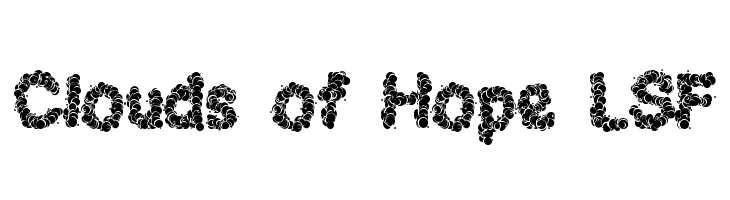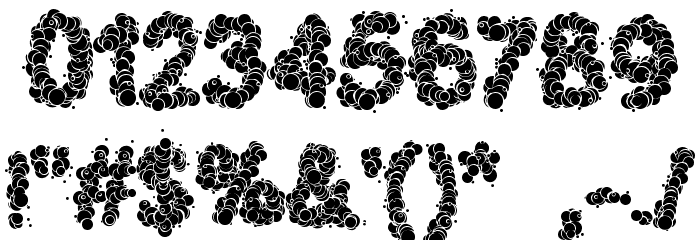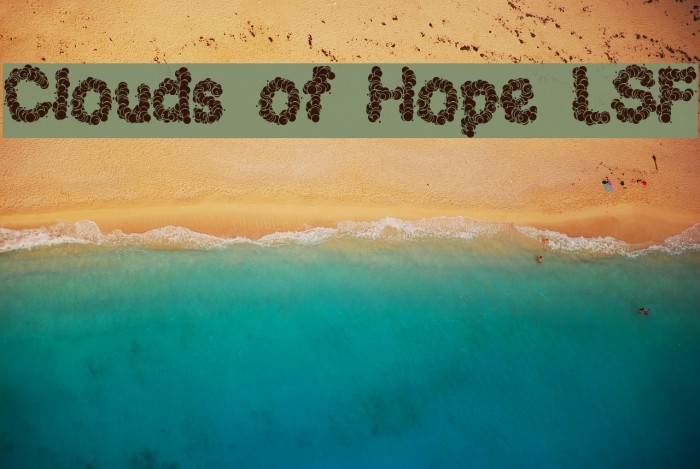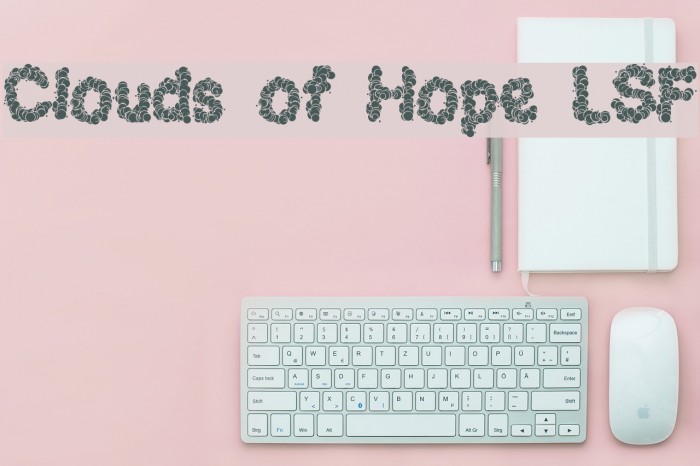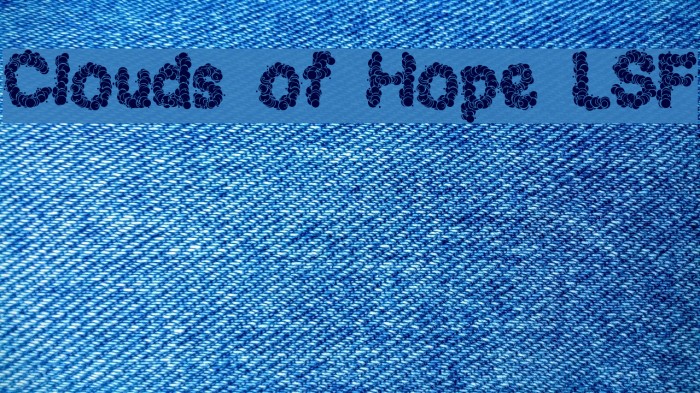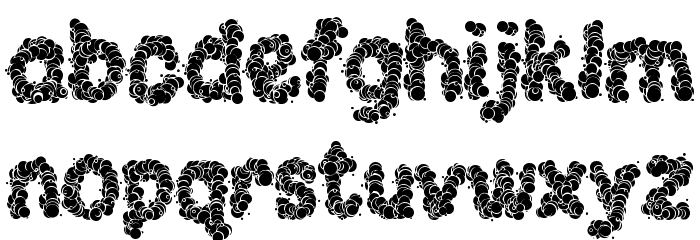
Clouds of Hope LSF Font
Clouds of Hope LSF Description
This font features a unique and playful design, characterized by its bubbly and cloud-like appearance. Each character is composed of overlapping circular shapes, creating a whimsical and textured effect. The font maintains a consistent thickness throughout, giving it a bold and impactful presence. Its decorative style is eye-catching and suitable for creative projects that require a fun and lively aesthetic. The characters are well-defined, ensuring readability despite the intricate design. This font is perfect for projects that aim to convey a sense of joy and creativity.
A playful, cloud-like font with a bubbly, decorative style from bubble letter fonts.
- Proposed Projects: Ideal for children's book covers, playful branding, party invitations, and creative posters.